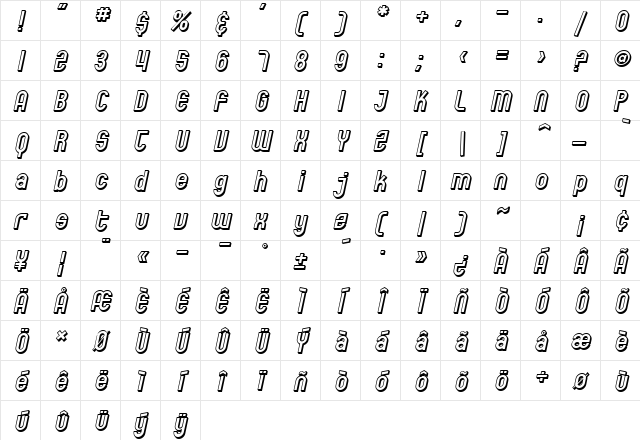
SF Eccentric Opus Shaded Oblique Free Font
SF Eccentric Opus Shaded Oblique
Design Context for SF Eccentric Opus Shaded
SF Eccentric Opus Shaded is a composed and adaptable typeface that performs quietly and consistently across a wide range of design contexts. The slanted form adds forward momentum and visual energy.
Pro Tip: Use SF Eccentric Opus Shaded for emphasis, pull quotes, and subheadings where its slanted energy can add rhythm to the layout.